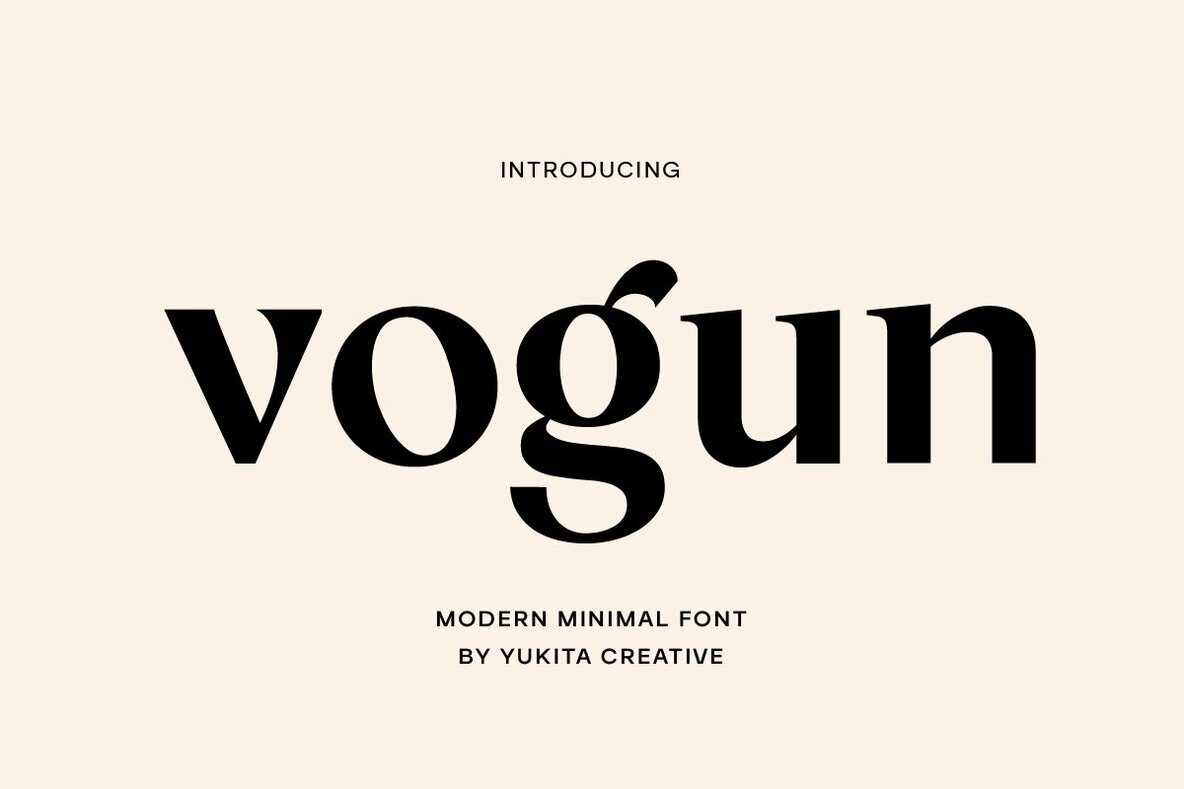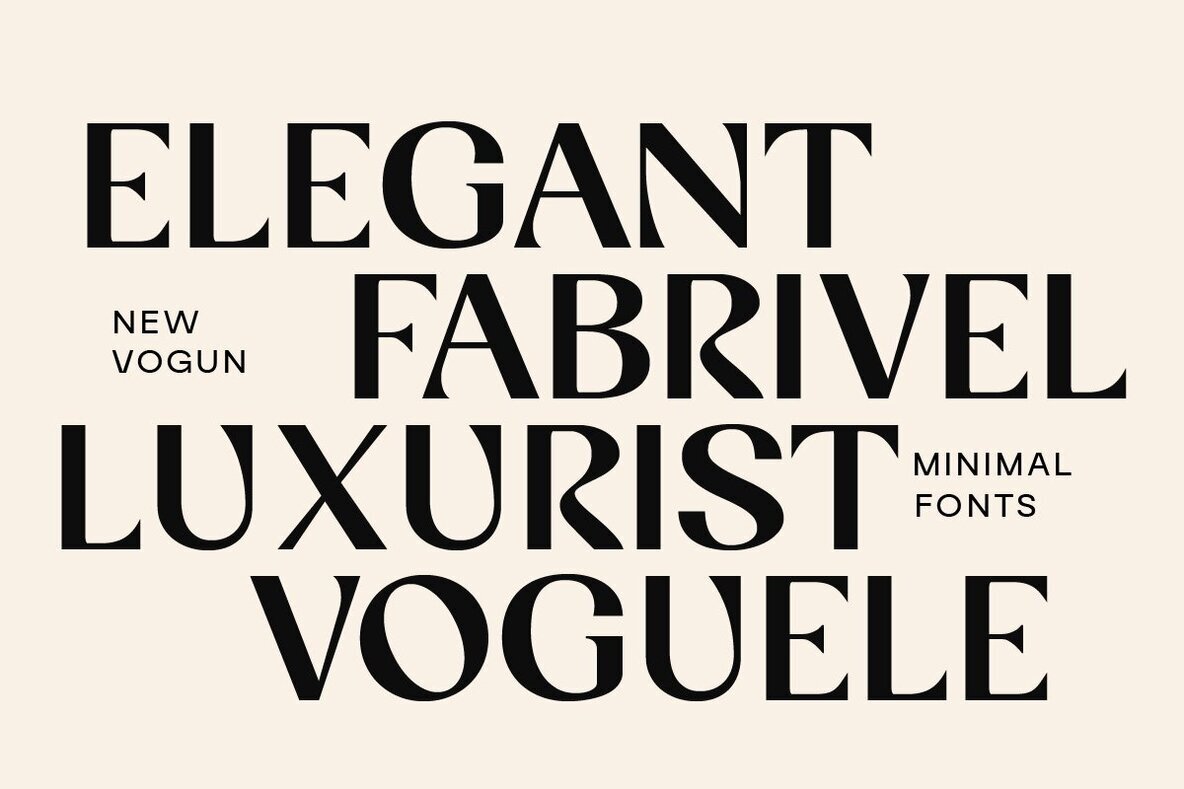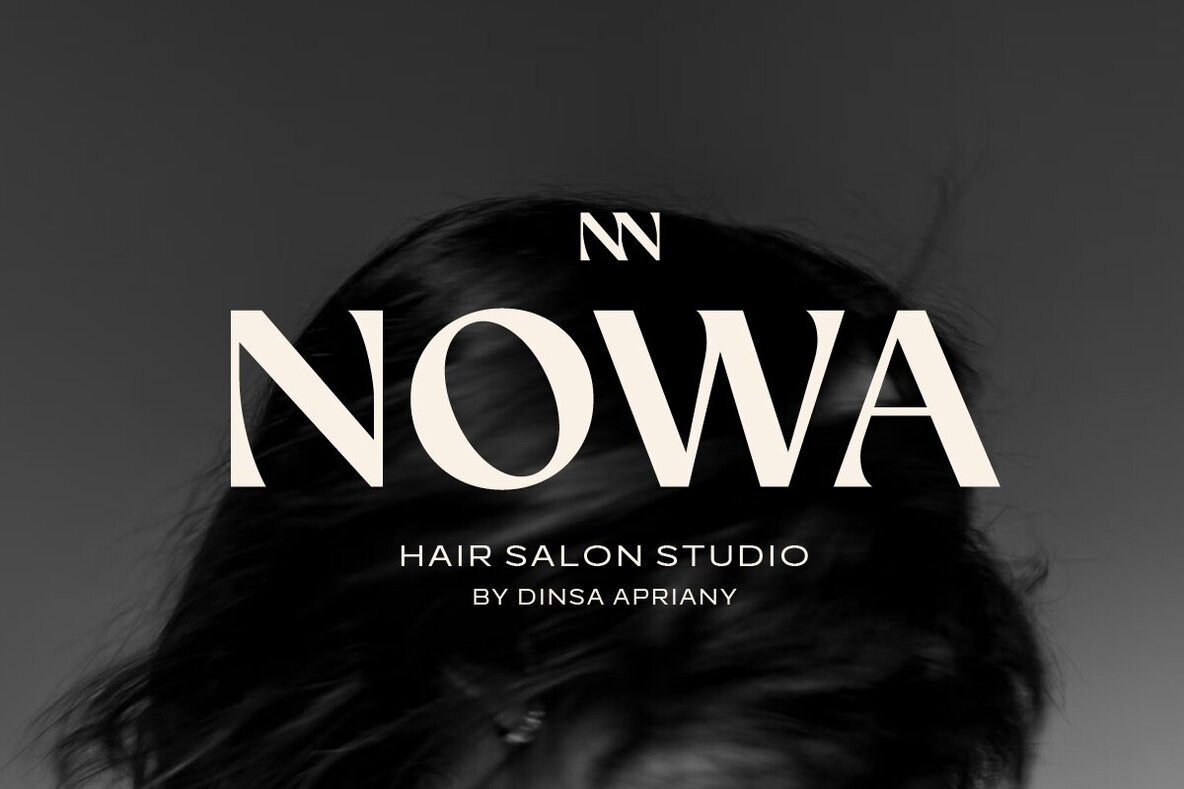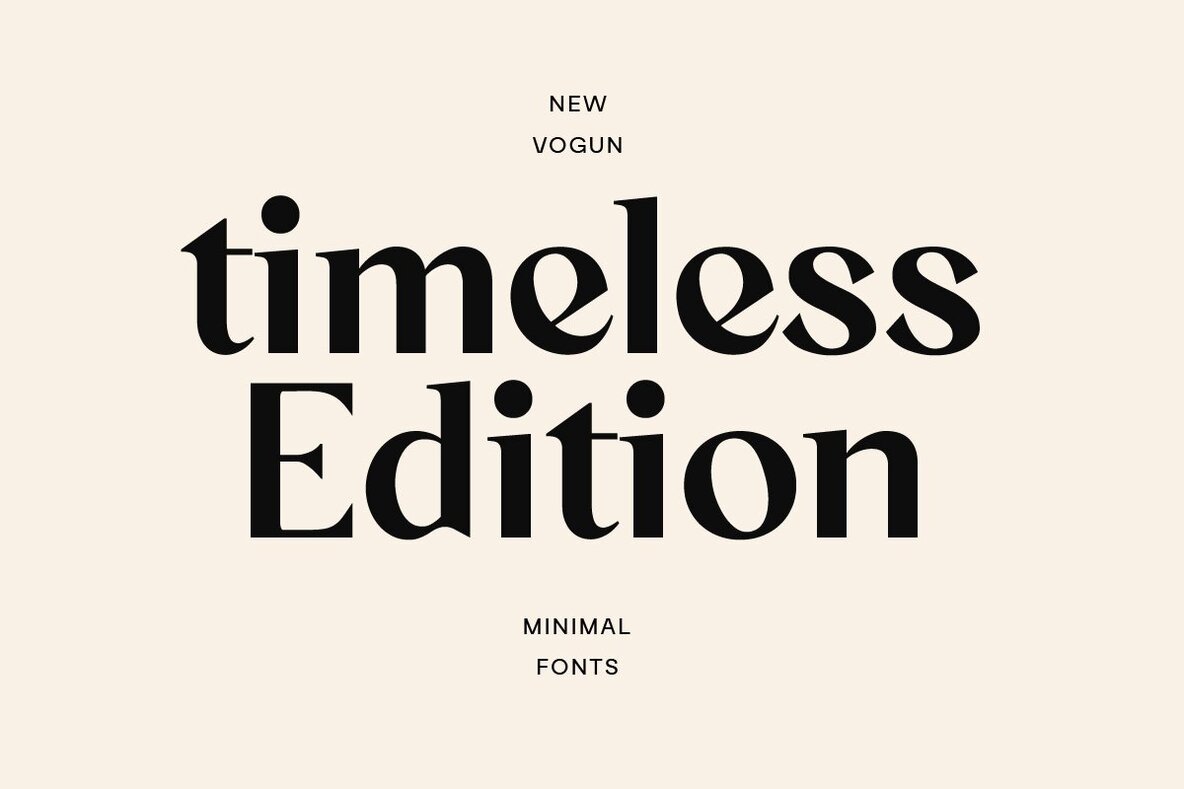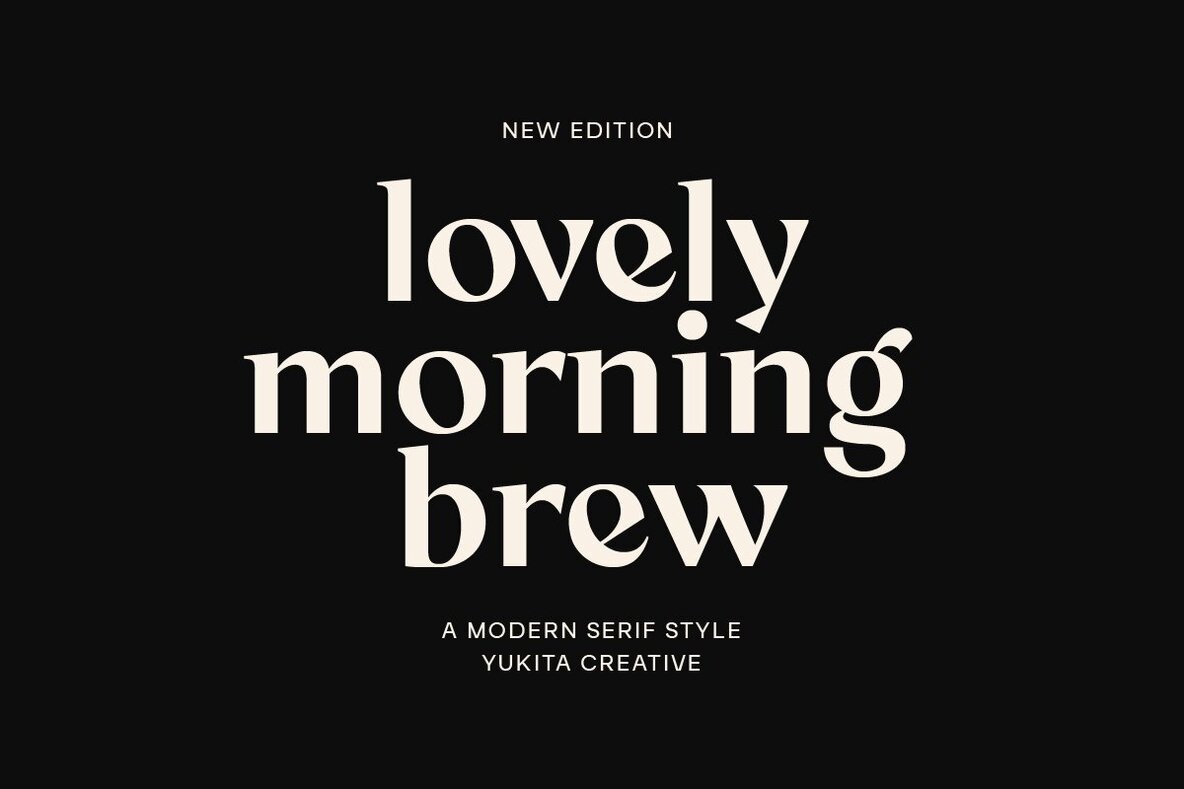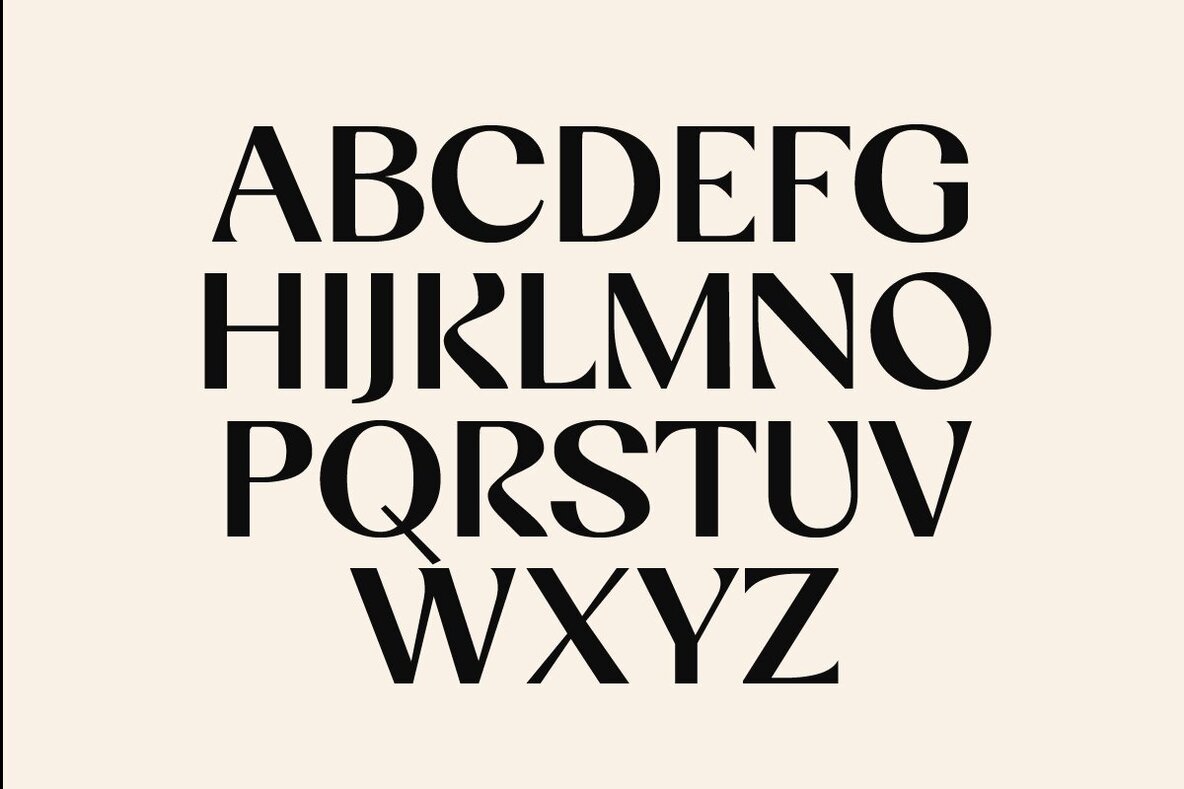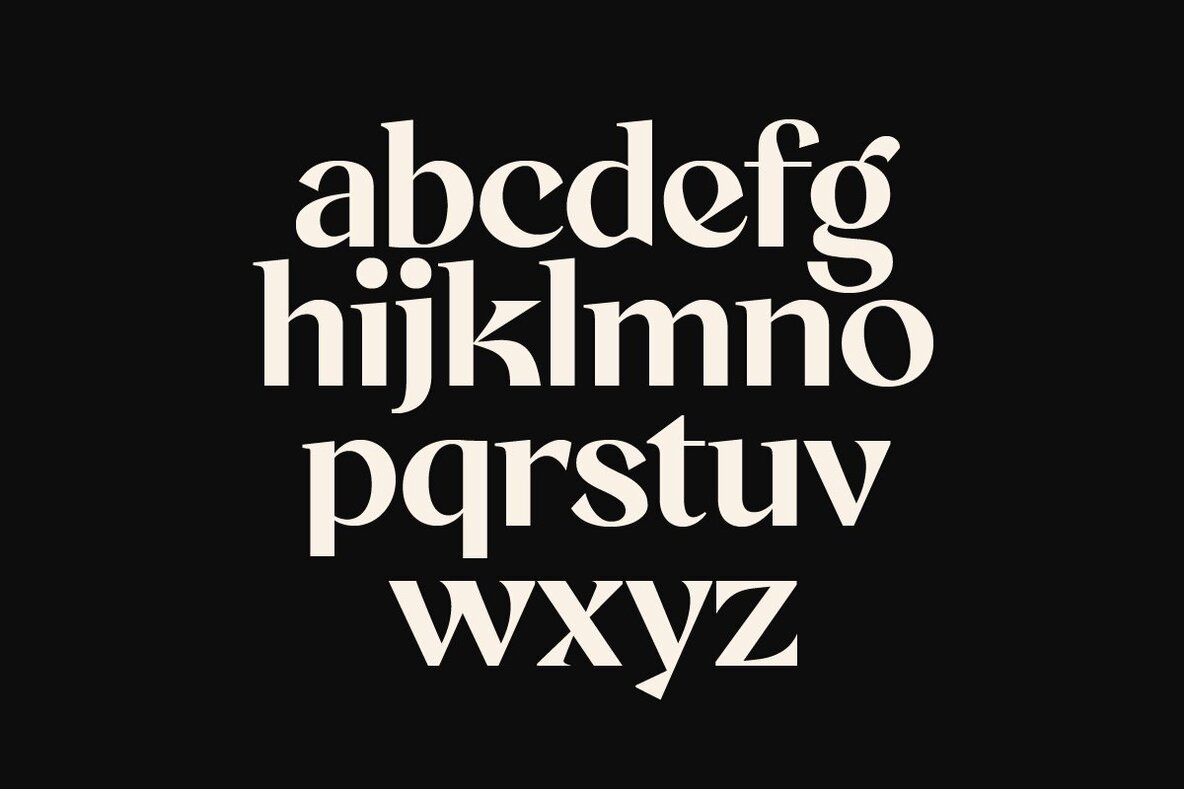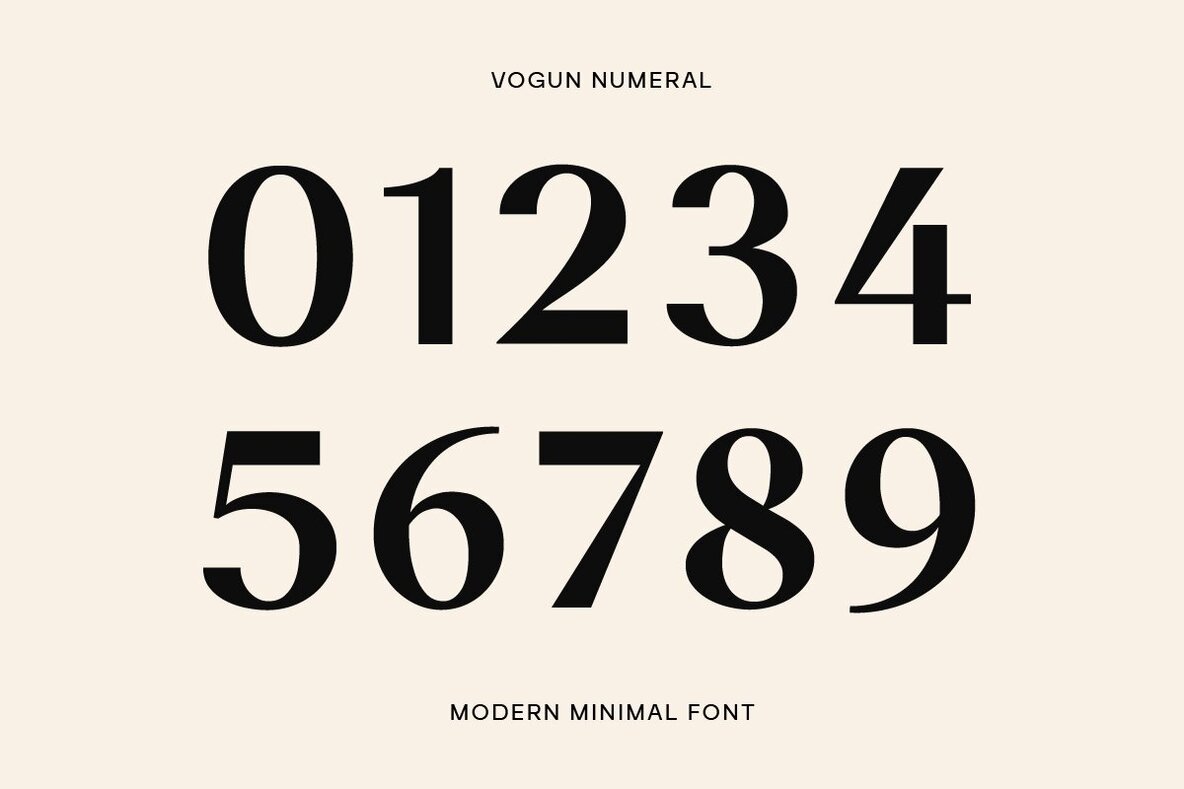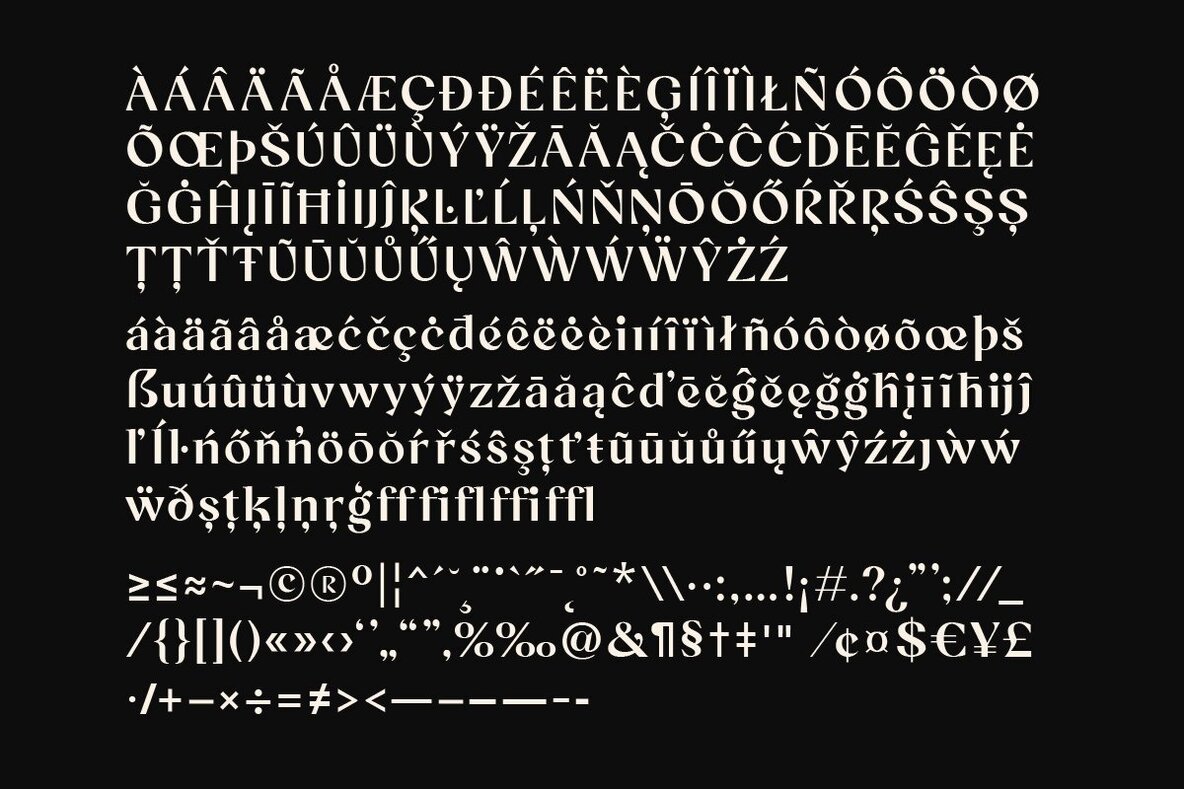
Vogun Font
Vogun is a minimalist display font designed for modern aesthetics, featuring clean lines and balanced proportions that exude elegance and simplicity. With two versatile styles, Regular and Italic, Vogun adapts seamlessly to various design needs, from branding and headlines to posters and packaging. Engineered for both digital and print applications, it ensures broad compatibility across platforms. Crafted for designers who appreciate minimalism without sacrificing style, Vogun strikes the perfect balance between simplicity and boldness, making every project look refined, professional, and visually compelling.